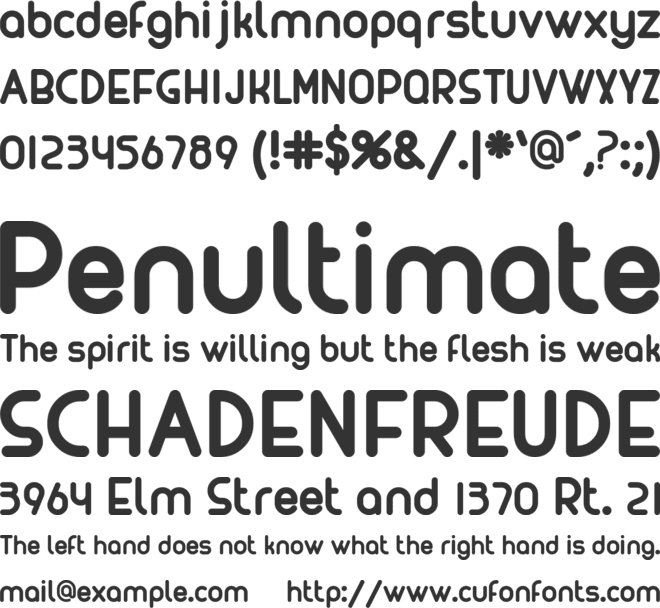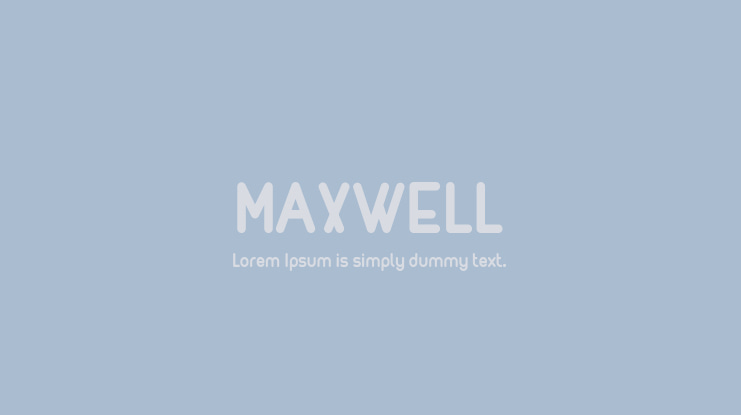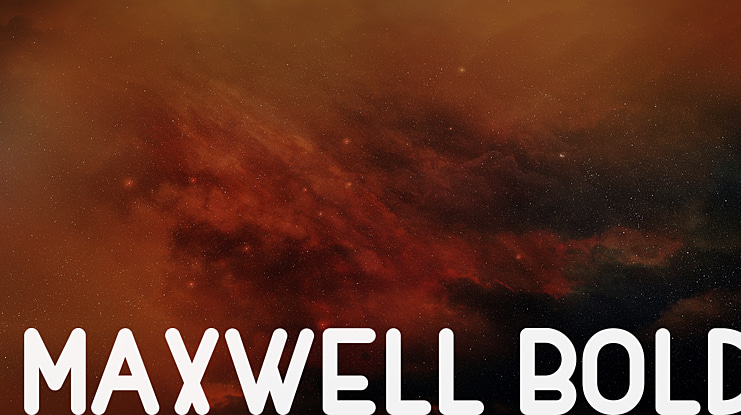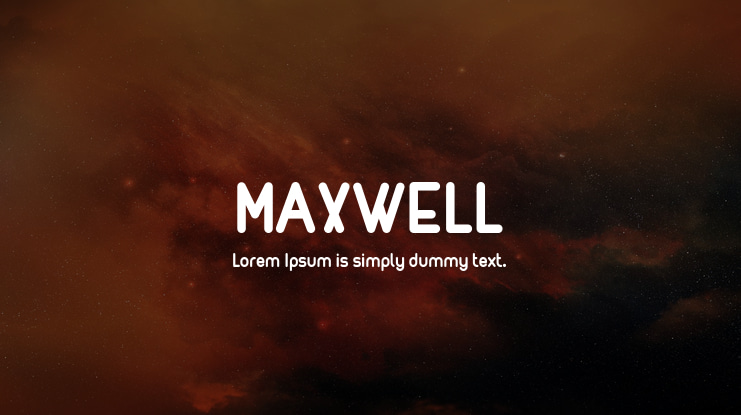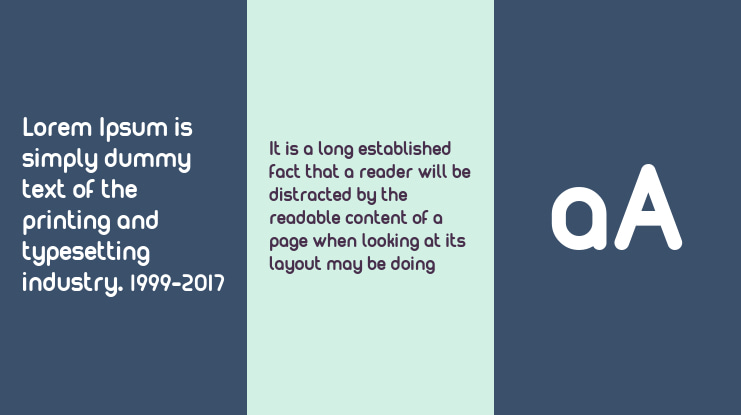
MAXWELL Font Family
Pyae Wai Mya Win (Ryan)
MAXWELL is applicable for any type of graphic design. (web, print, motion graphics etc and perfect for headlines and logotypes/ wordmarks)